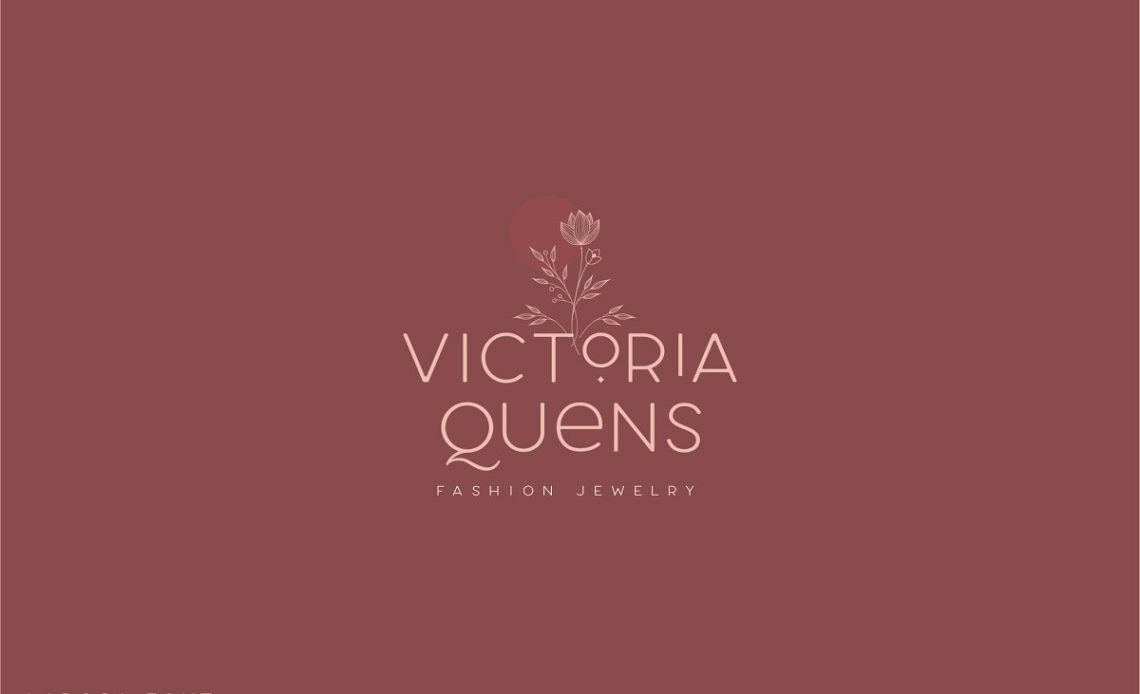
Introducing Larosa Sans, the elegant and modern sans serif font designed by NEWFLIX Bro. With its clean and minimalistic design, this font is perfect for logos, headlines, posters, packaging, and more. Its unique stylistic alternates and ligatures provide a wide range of options to create distinctive and eye-catching designs.
Larosa Sans comes in seven different weights, making it a versatile option for any project. Whether you're looking for a bold and attention-grabbing font or a more subtle and understated option, Larosa Sans has you covered.
Overall, Larosa Sans is a font that will elevate your designs and help you stand out in a crowded marketplace. Don't miss out on the opportunity to make your projects more unique and captivating with this stunning font.